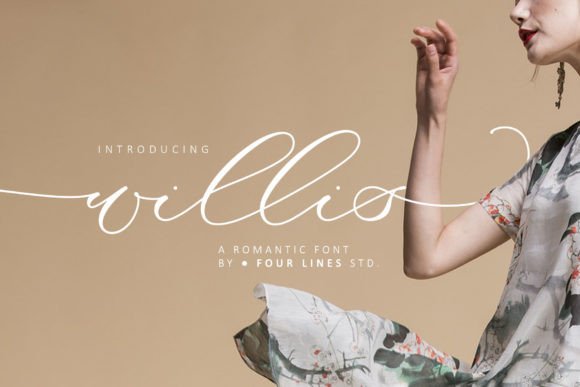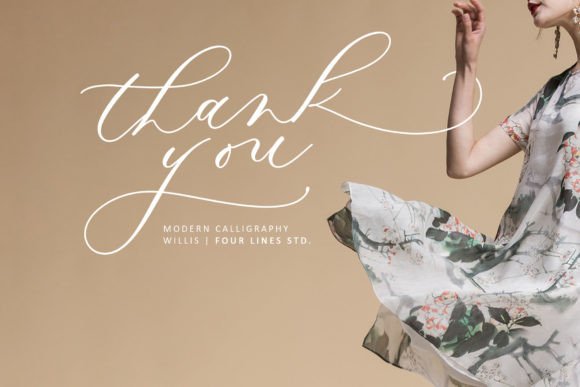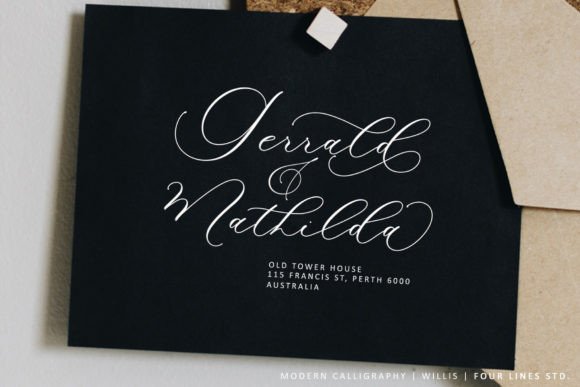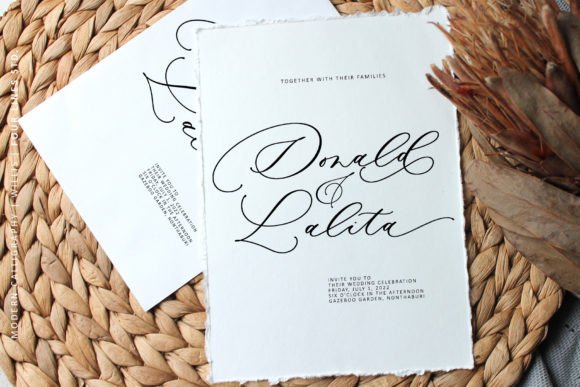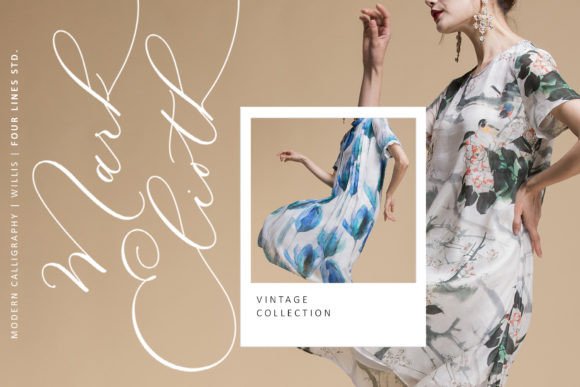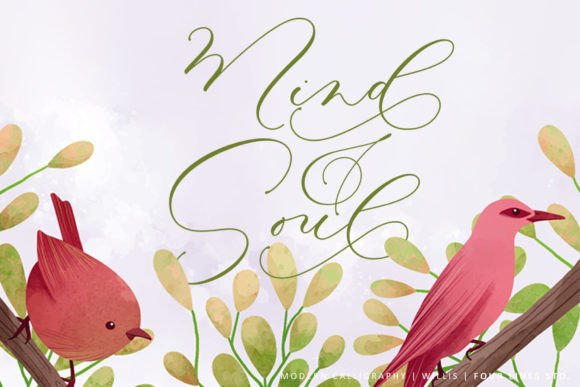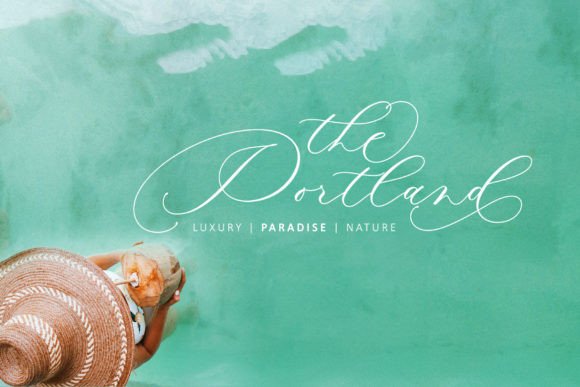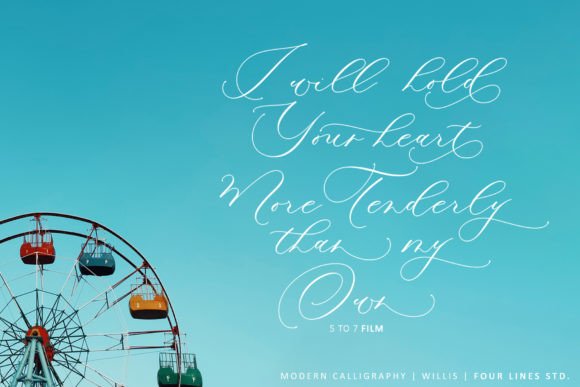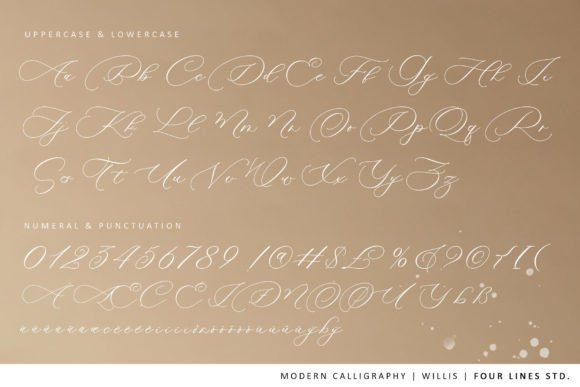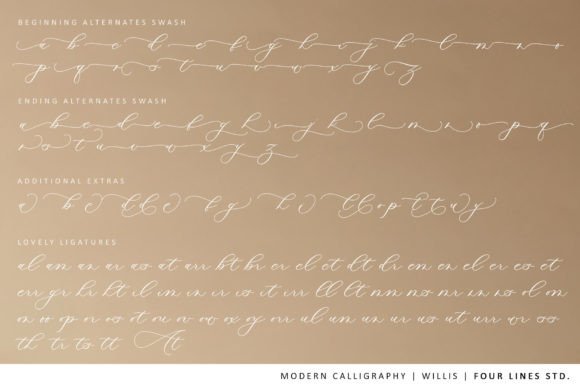
Willis Font
About Willis Font
Introducing “Willis,” a modern and fashionable calligraphy script font that combines sweetness with elegance. This versatile font is perfect for a range of projects, including logos, wedding invitations, headings, letterhead, signage, labels, news, posters, badges, and more. Add “Willis” to your creative arsenal and watch how it breathes life into your most imaginative ideas!
Envision “Willis” gracing your logos with its contemporary and stylish calligraphic strokes, adding a touch of sophistication to your brand. Picture it on wedding invitations, bringing an element of modern elegance to this special occasion. Visualize “Willis” enhancing headings, letterheads, and signage, contributing to a cohesive and refined visual identity.
The fashionable and versatile nature of “Willis” makes it a valuable asset for various design projects. Its ability to seamlessly adapt to different contexts allows it to shine in both digital and print applications.
Explore the endless possibilities of “Willis” as you integrate it into your creative projects. This font is designed to be a modern and elegant choice that elevates the visual appeal of your designs across a diverse range of applications.